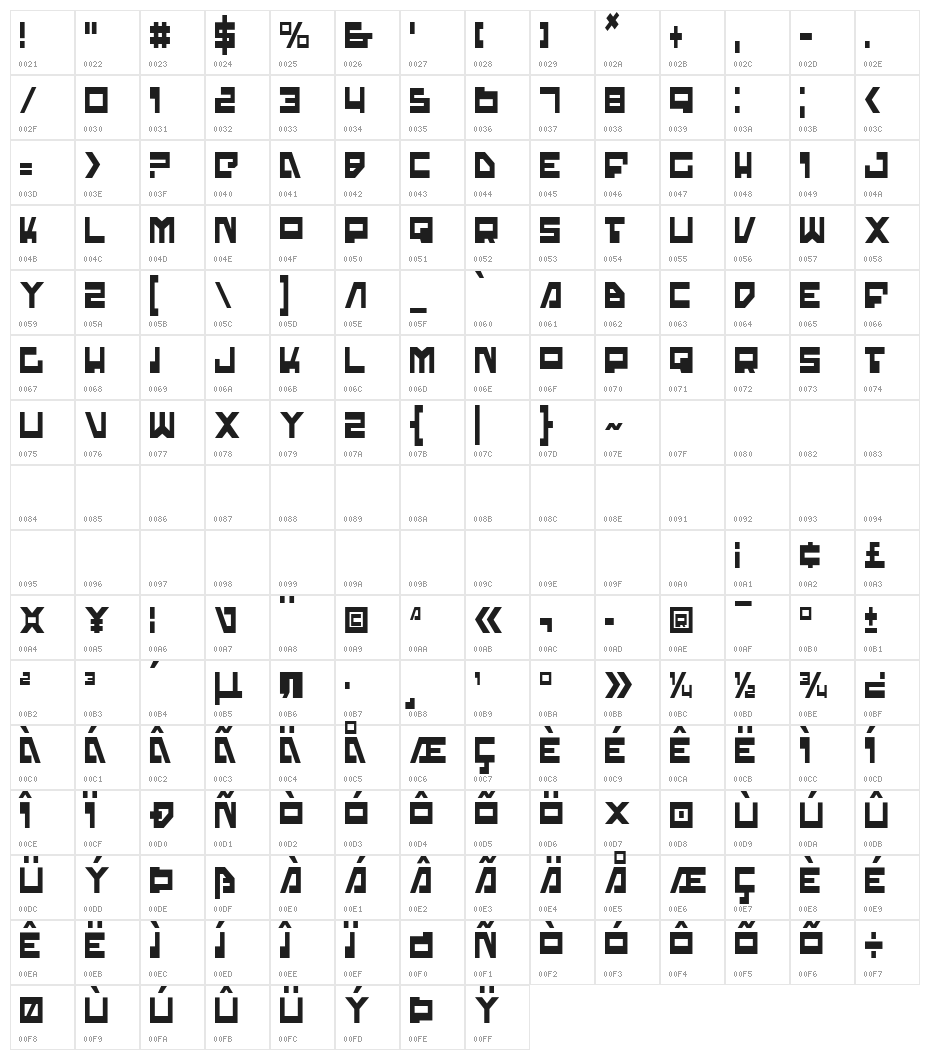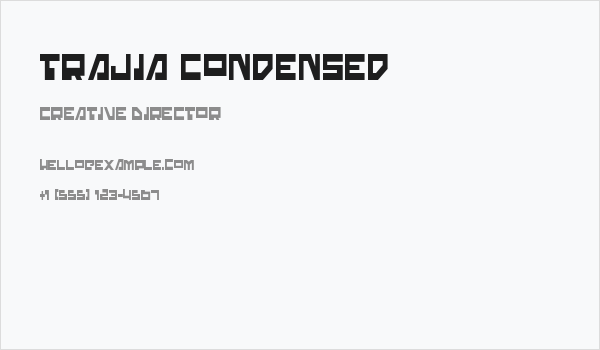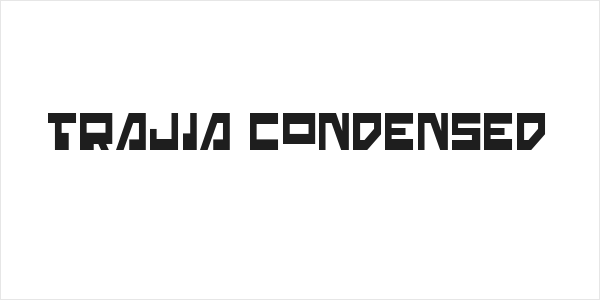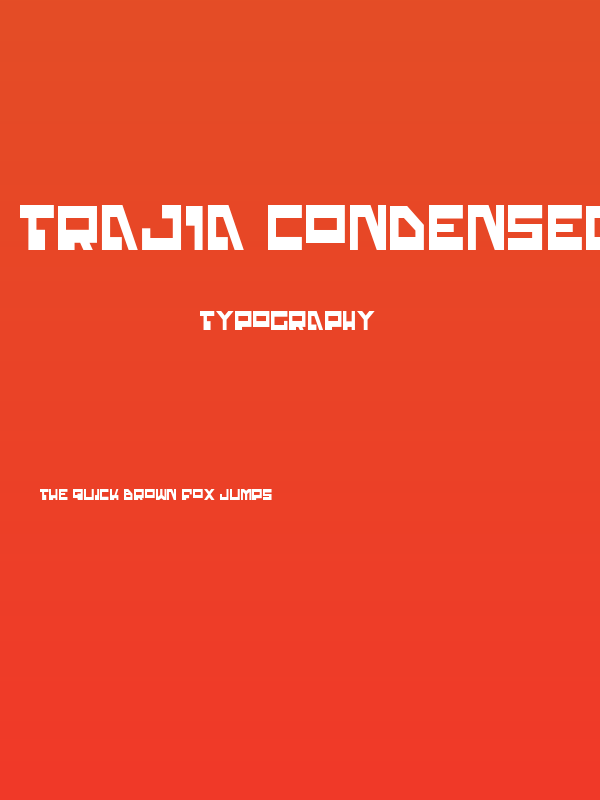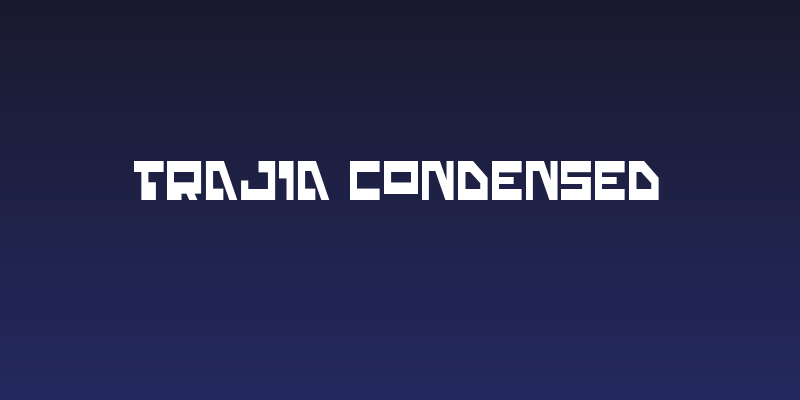
Trajia Condensed Font
Trajia Condensed Description
This font features a bold and geometric design with a condensed structure, giving it a strong and impactful appearance. The characters are constructed with sharp angles and straight lines, creating a modern and futuristic feel. The uppercase and lowercase letters maintain a consistent height, enhancing the uniformity and compactness of the font. The numerals and special characters follow the same geometric style, ensuring coherence across all glyphs. This font's distinct and striking look makes it suitable for attention-grabbing designs.